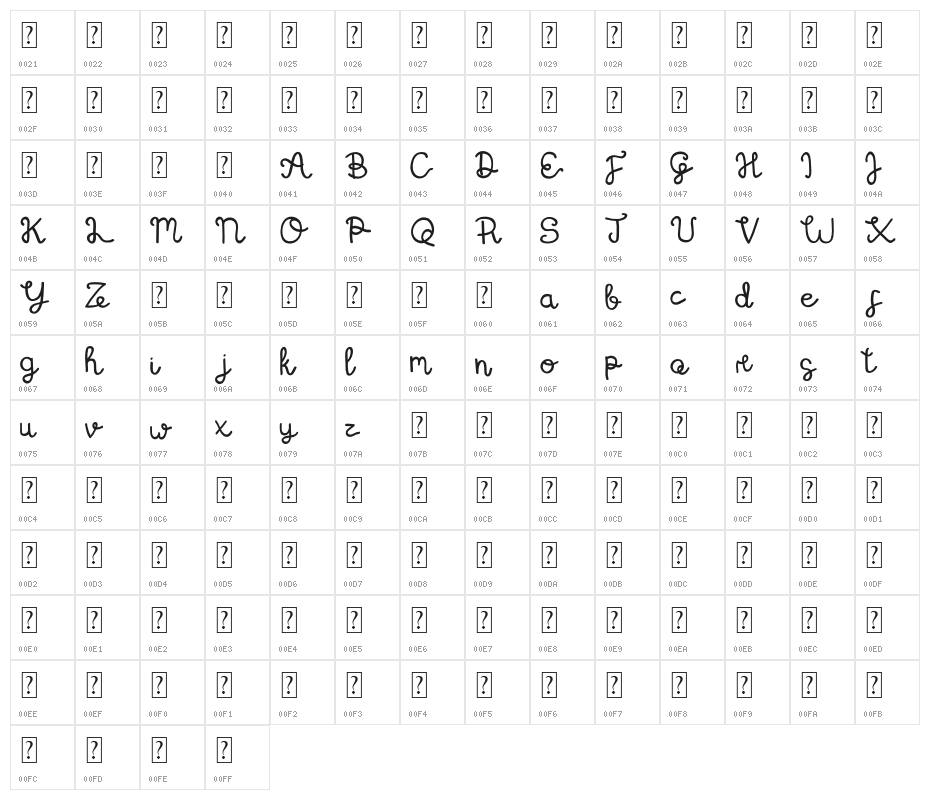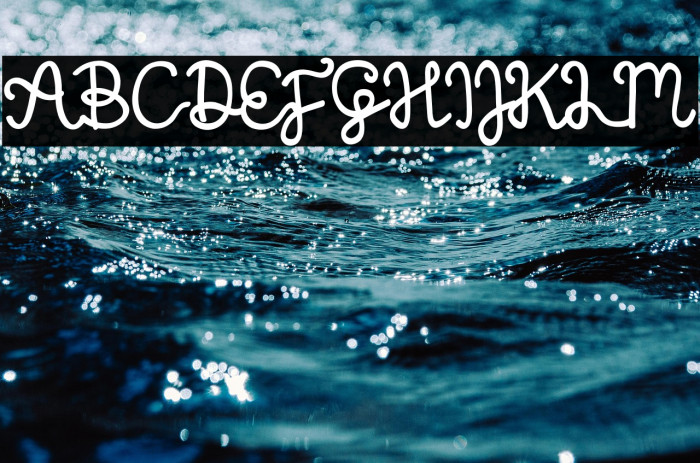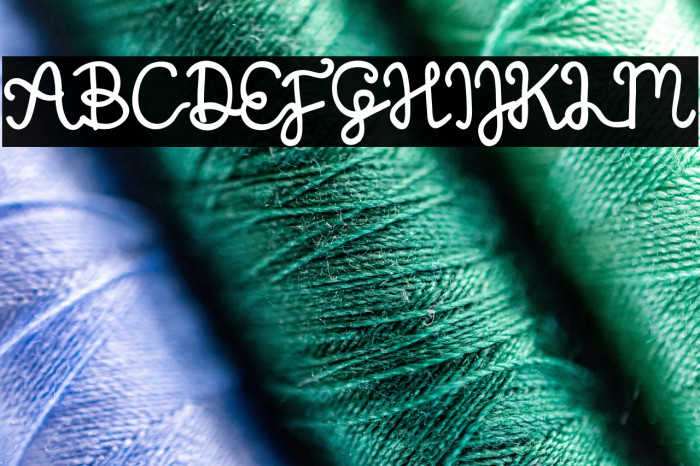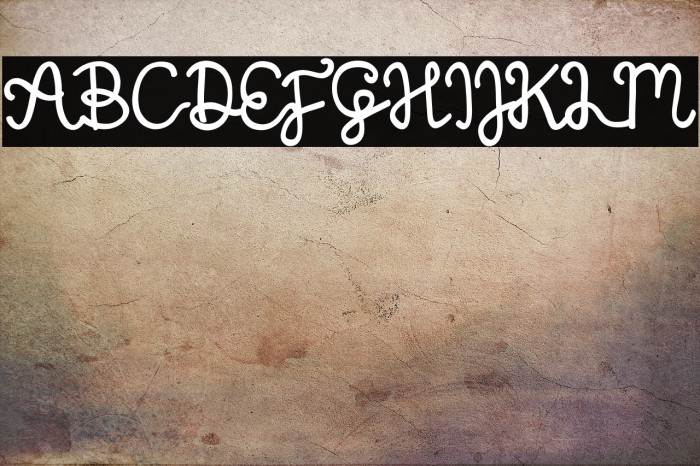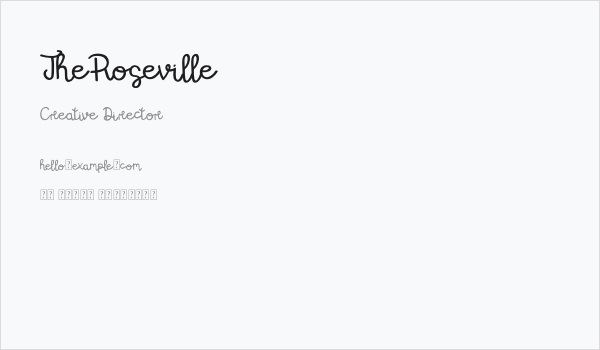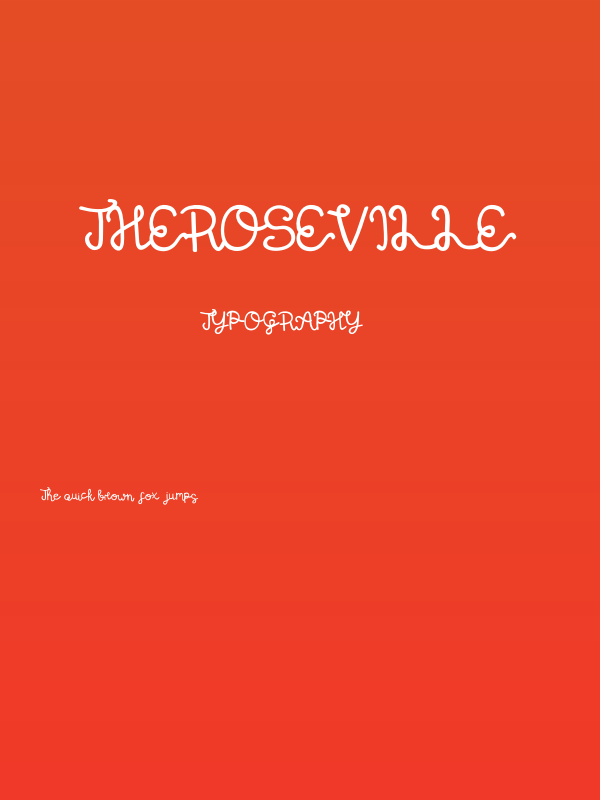
TheRoseville Font
TheRoseville Description
This font features a playful and whimsical script style, characterized by its flowing, interconnected letters. The uppercase letters are bold and slightly exaggerated, with a consistent looped design that adds a sense of movement and fluidity. The lowercase letters maintain the same playful aesthetic, with rounded edges and a casual, handwritten feel. The font's overall appearance is both approachable and artistic, making it ideal for creative projects. The characters are evenly spaced, ensuring readability while maintaining the font's unique style.
| Proposed Projects | Ideal for greeting cards, invitations, playful branding, and creative projects. |